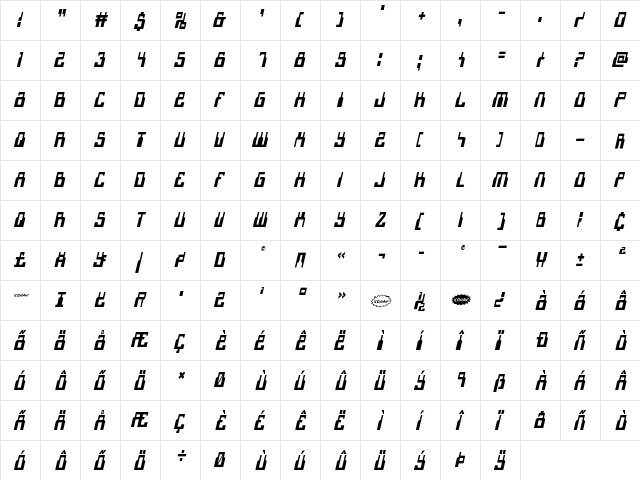
1968 Odyssey Condensed Italic Font Preview
Design Context for 1968 Odyssey Condensed Italic Typeface
1968 Odyssey Condensed Italic takes a measured approach to typography — its balanced proportions and neutral character make it a reliable workhorse for both digital and print work. The dynamic lean of this cut emphasises speed and emphasis in any layout. The condensed width makes it efficient for tight spaces without sacrificing legibility.